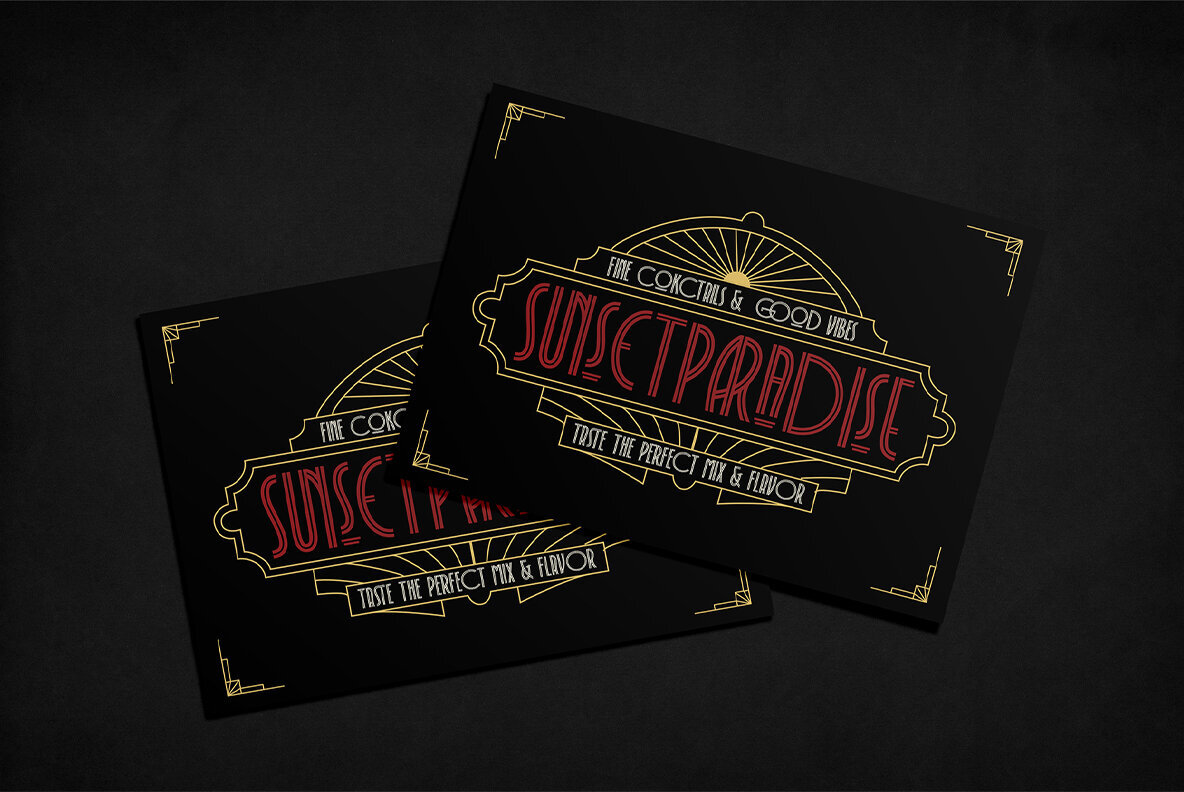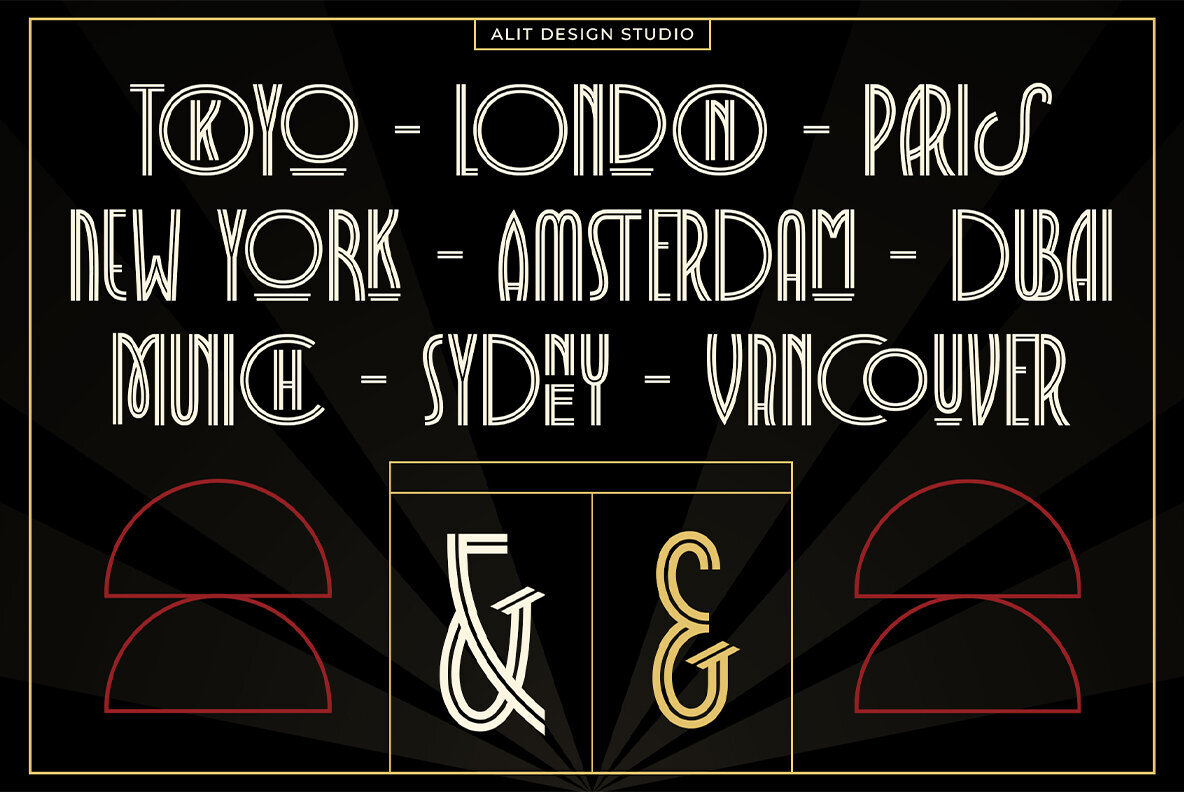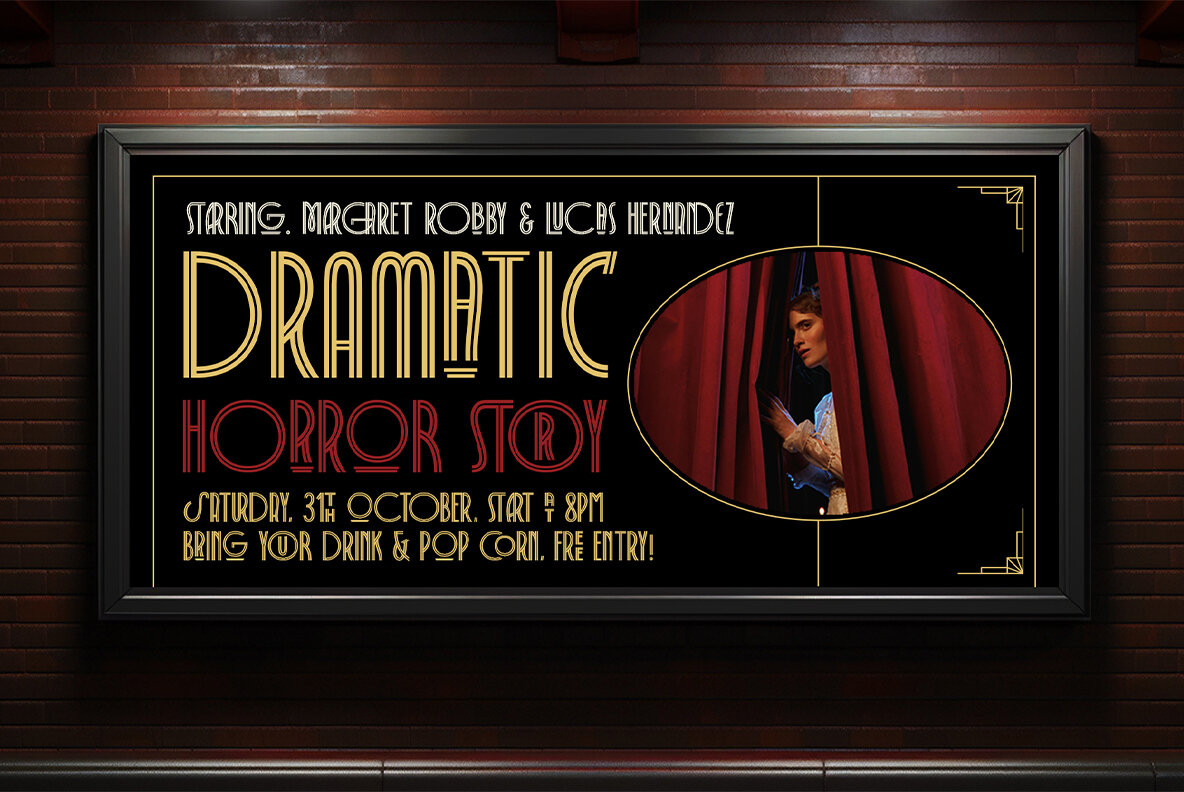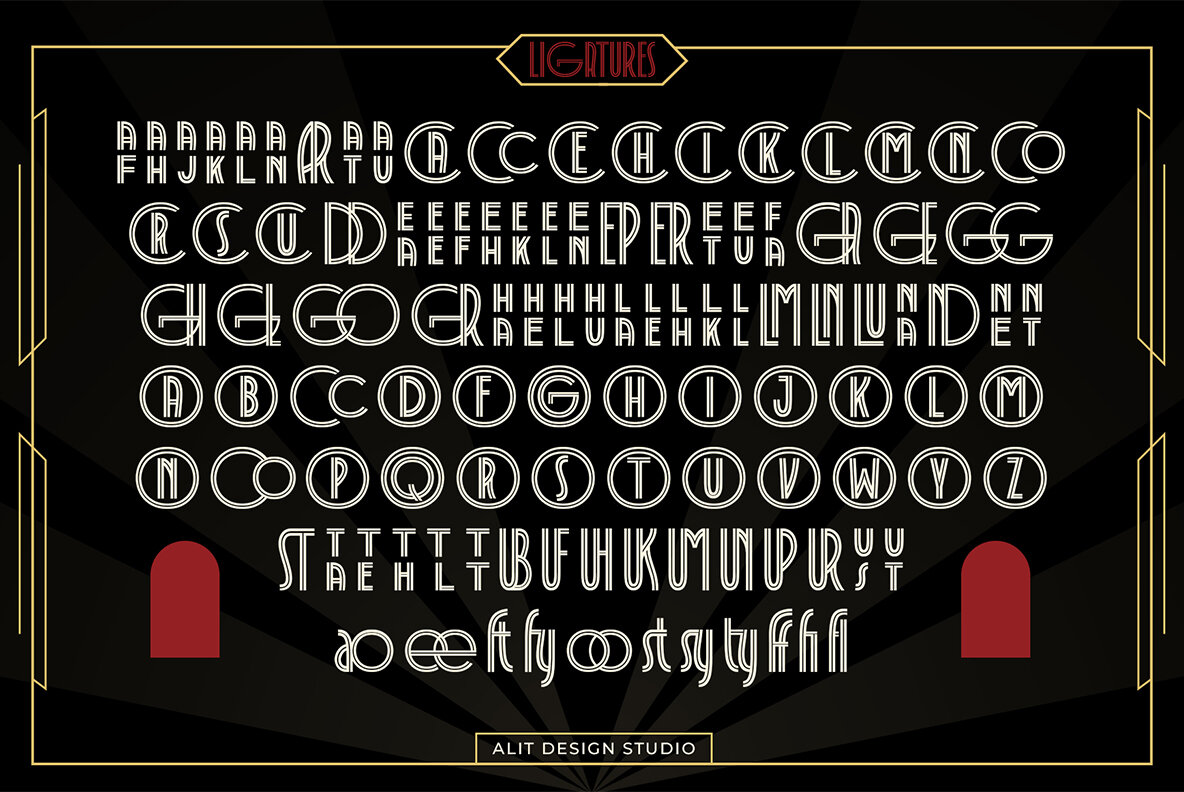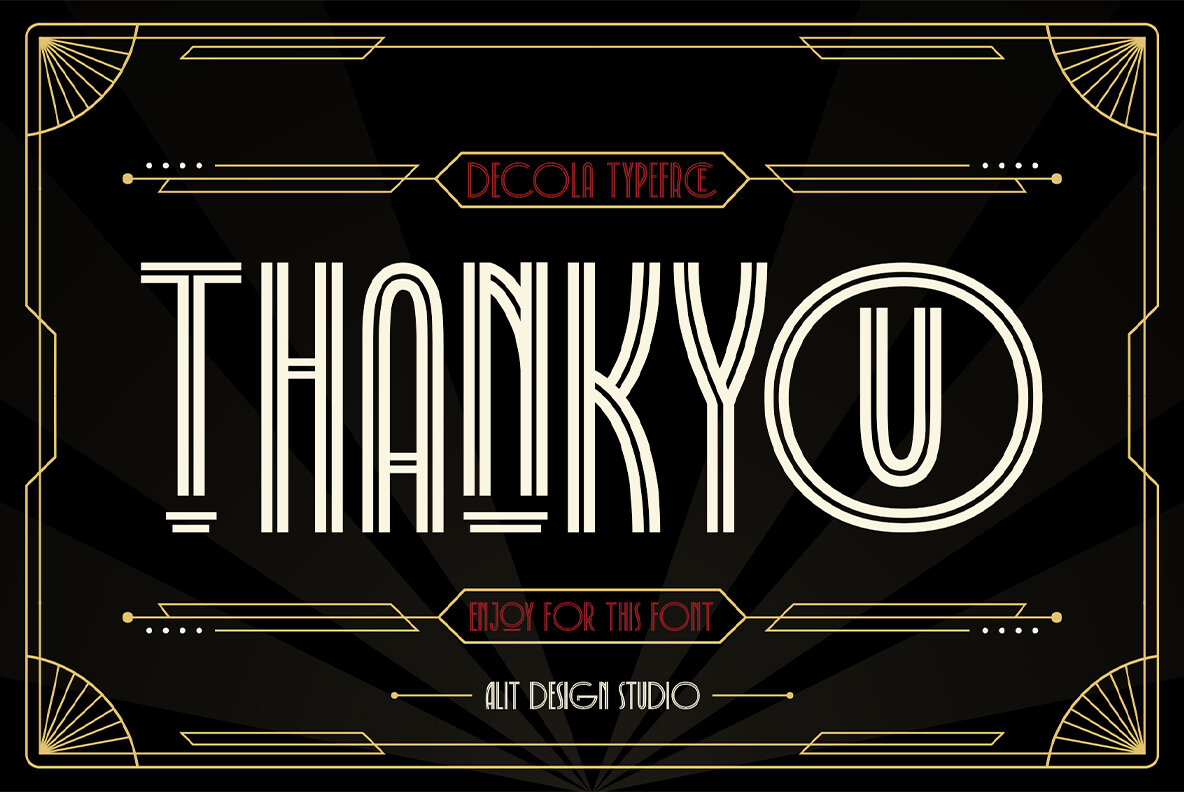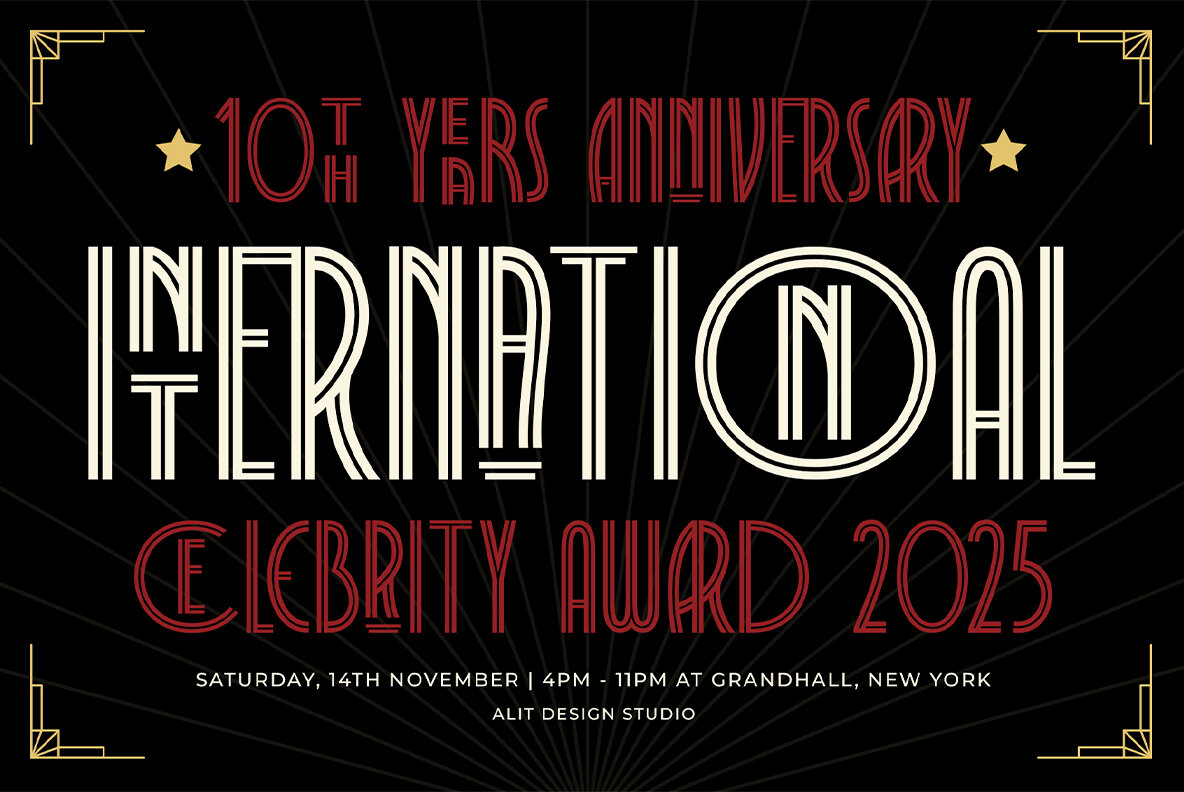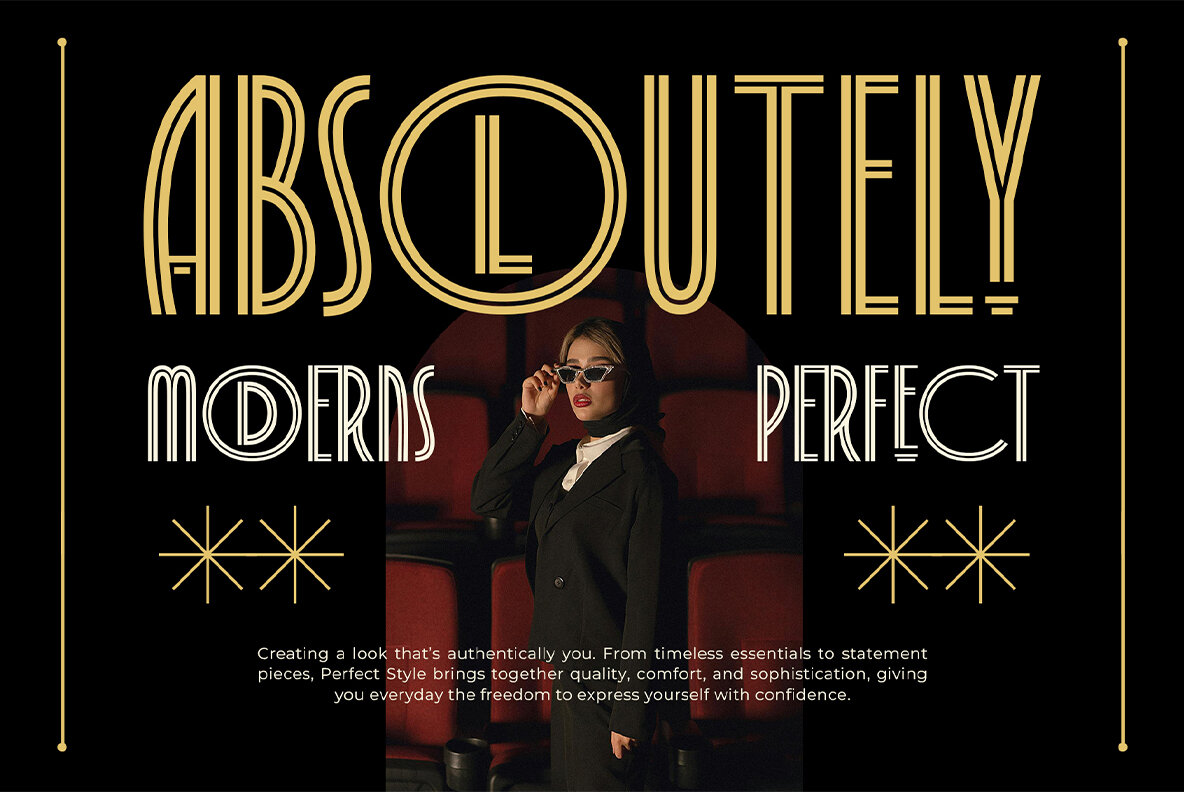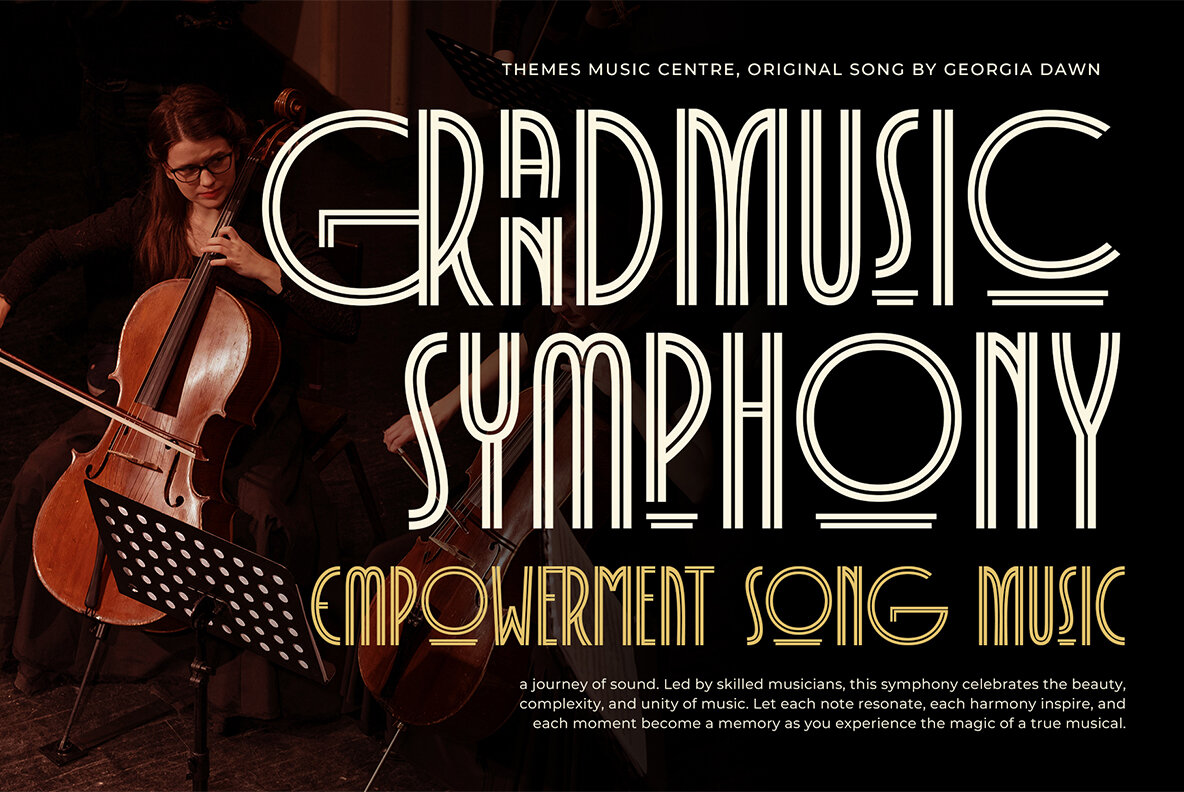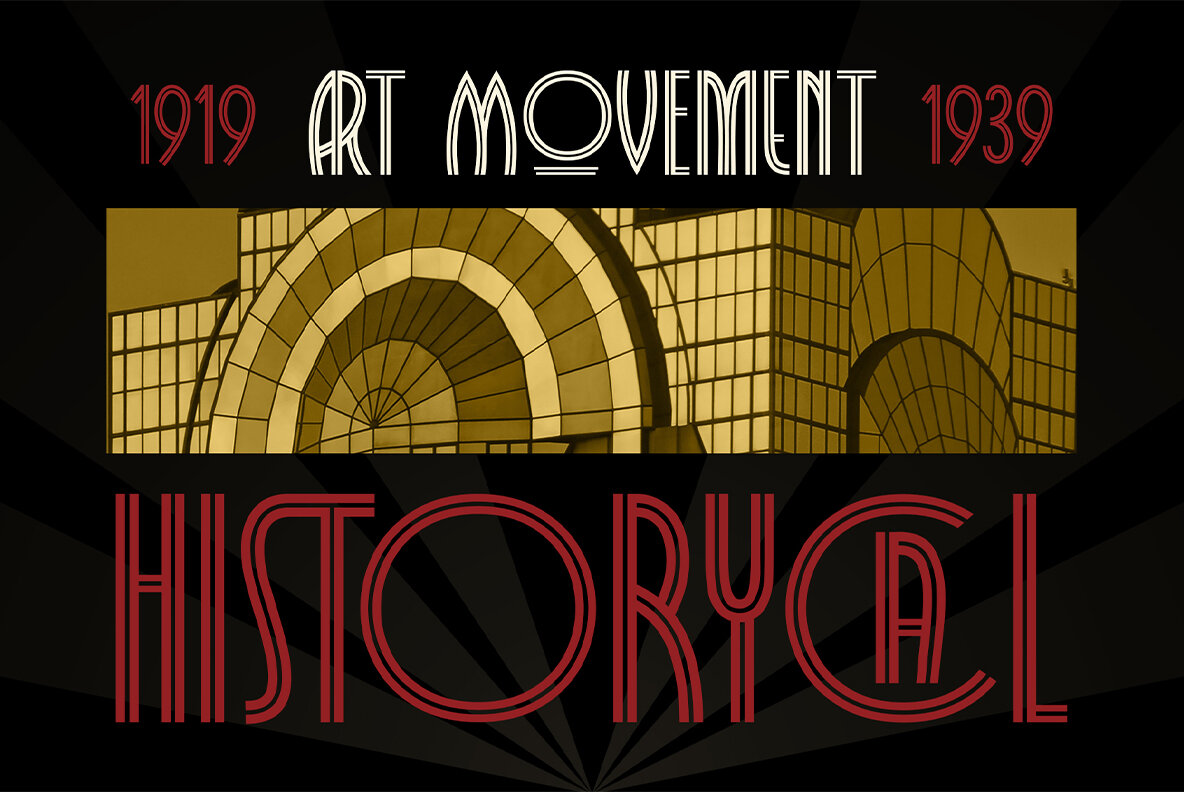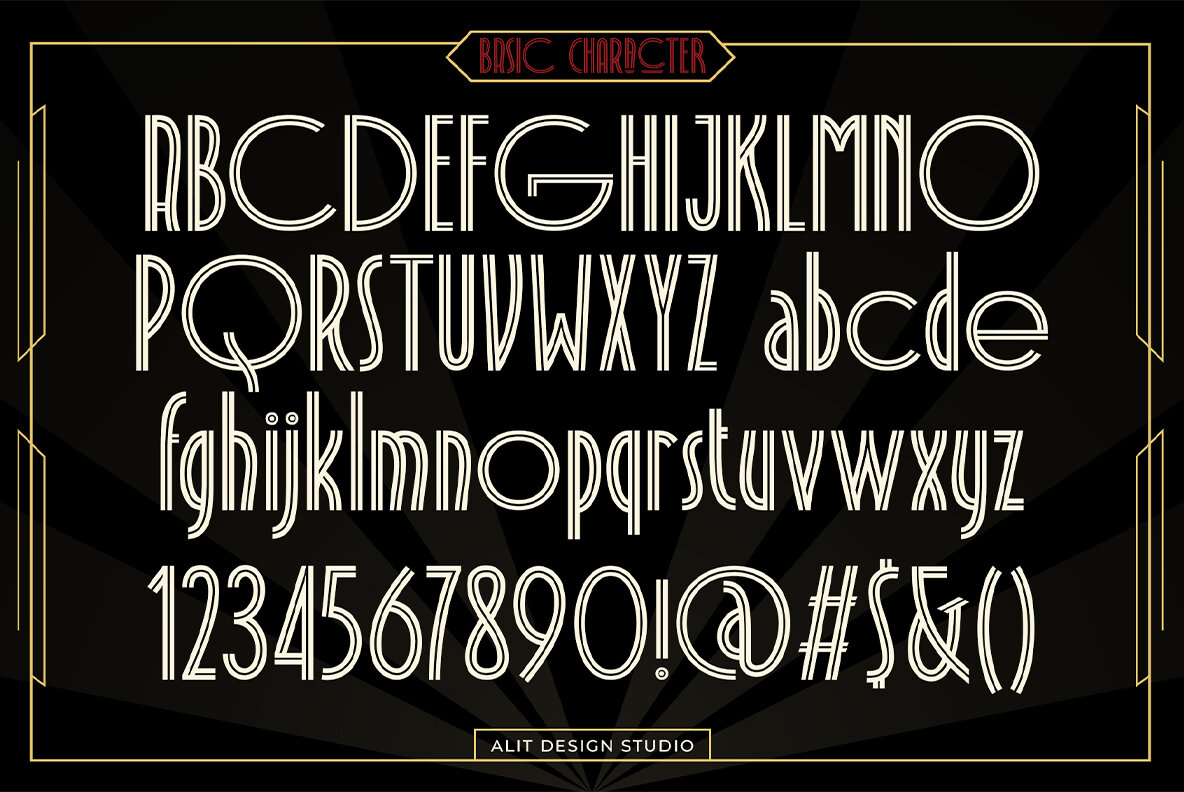
Decola Font
Decola Regular
Decola Art Deco Typeface The Decola Art Deco Typeface is a masterful blend of elegance and vintage charm, inspired by the bold and opulent aesthetics of the Art Deco era. This unique typeface is defined by its dynamic 2-line body, which creates a sense of sophistication and movement, making it ideal for modern designs that aim to evoke timeless luxury. Features: Ideal For: Decola Art Deco Typeface is the epitome of vintage elegance meeting modern functionality, a true asset for any designer looking to elevate their projects with a touch of Art Deco grandeur.